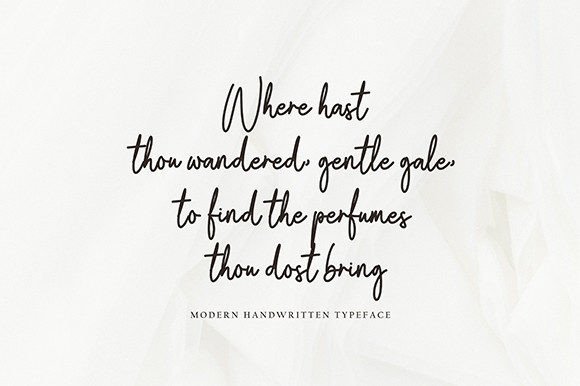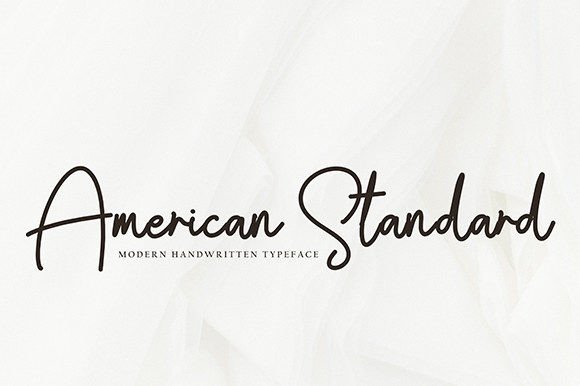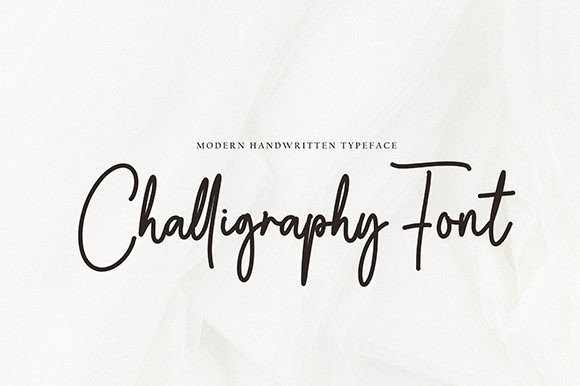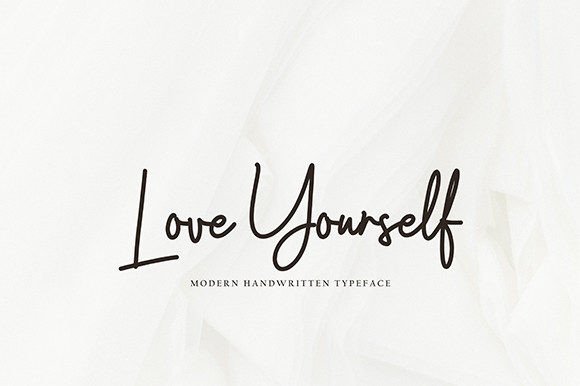
**Shitang Font: Elegant Handwritten Style for Distinct Designs**
The Shitang font is a flowing handwritten typeface with an elegant touch, ideal for adding a unique and timeless style to your creative projects. Here are some ways you can use this font to create spectacular designs:
1. **Invitations:** Design elegant and personalized invitations for weddings, parties, and special events. The Shitang font’s distinct style will set the tone for a memorable occasion.
2. **Greeting Cards:** Craft beautiful and heartfelt greeting cards for birthdays, anniversaries, and holidays. The font’s flowing script adds a touch of sophistication to your messages.
3. **Logo Design:** Create distinctive logos for your brand or business. The Shitang font’s elegant handwritten style can help your logo stand out and leave a lasting impression.
4. **Typography Art:** Design stunning typographic artwork featuring inspiring quotes, phrases, or poems. The font’s distinctiveness enhances the visual impact of your artwork.
5. **Branding Materials:** Use the Shitang font in your branding materials, including business cards, letterheads, and promotional materials, to convey a sense of elegance and professionalism.
6. **Product Packaging:** Apply the font to product labels, packaging, and tags to give your products a unique and stylish look. The font’s timeless style appeals to a wide audience.
7. **Wedding Stationery:** Design complete wedding stationery suites, including invitations, RSVP cards, and thank-you notes. The font’s elegance complements the romantic atmosphere of weddings.
8. **Book Covers:** Create eye-catching book covers for novels, poetry collections, or non-fiction books. The Shitang font’s distinctive style adds intrigue and allure to your cover designs.
9. **Magazine Layouts:** Use the font for headings, titles, and pull quotes in magazine layouts. Its elegant touch enhances the overall aesthetic of your publication.
10. **Website Headings:** Incorporate the Shitang font into your website design for headings and banners. Its timeless style adds a touch of sophistication to your online presence.
11. **Restaurant Menus:** Design classy and easy-to-read menus for restaurants and cafes. The font’s flowing script is perfect for showcasing culinary offerings.
12. **Artistic Signage:** Create artistic and elegant signage for events, exhibitions, or businesses. The font’s distinctiveness helps draw attention and convey important information.
13. **Personal Branding:** Use the Shitang font for personal branding, such as personal websites, blog headers, and social media profiles, to showcase your unique style.
14. **Special Occasion Decor:** Design decorations and signage for special occasions like weddings, anniversaries, and milestone birthdays. The font adds a touch of sophistication to the decor.
15. **Social Media Graphics:** Incorporate the Shitang font into your social media posts, graphics, and stories to create a cohesive and elegant visual identity.
The Shitang font’s distinct and timeless style, described by an elegant touch, makes it a versatile choice for a wide range of design projects. Its flowing script and unique character add sophistication and charm, making your creations truly spectacular.